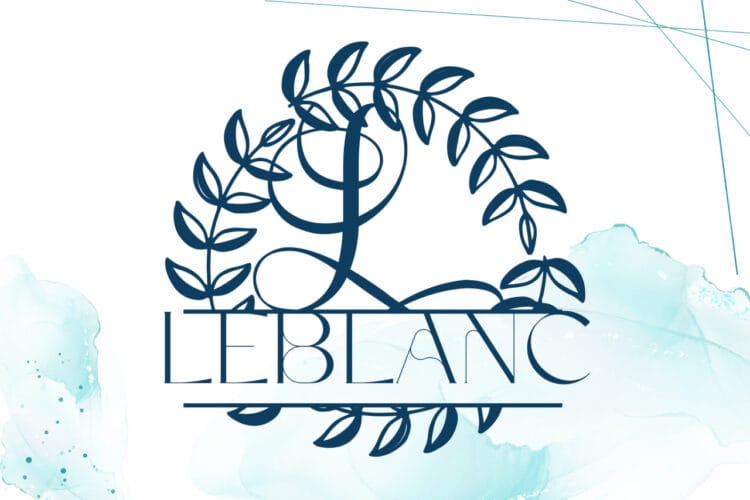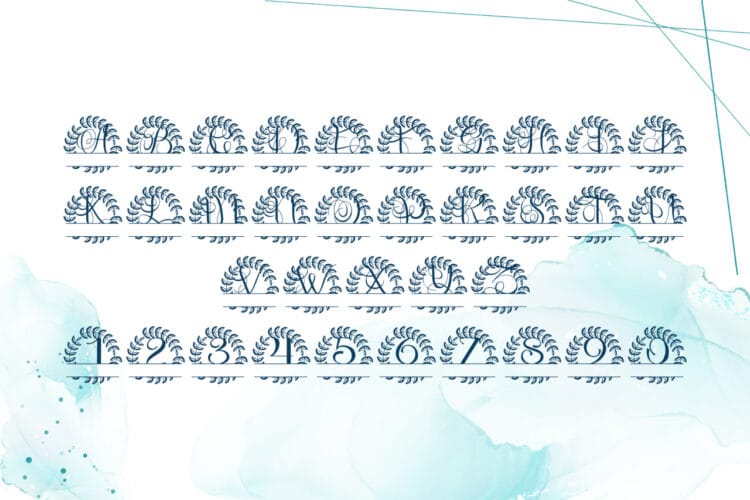
Meet Jewelbourne Split Monogram Font
Jewelbourne Split Monogram Font turns any initial into a radiant, name-ready emblem in seconds. Calm, confident letterforms carry a boutique-luxury feel, while a precise horizontal split creates natural space for names, dates, or short words. Because spacing stays even and counters remain open, designs look polished from tiny tags to statement wall art. Use it for wedding keepsakes, family name signs, door hangers, tumblers, ornaments, menus, and premium packaging. Pair it with a clean sans or a light script and every layout stays readable and refined.
Where this split monogram font shines
Set one hero initial and place the family name inside the split for instant personalization. Next, try couple names for engagement gifts, venue names for wayfinding, or short words like Home, Welcome, and Love for seasonal décor. Since proportions favor clarity, your files scale smoothly for Cricut, Silhouette, Glowforge, and laser projects. As a result, batch customization becomes fast and consistent across your product lines.
Design tips for Jewelbourne Split Monogram
Keep the hero initial large and let white space breathe. Place the split at center or slightly low for a steady baseline. Choose a simple secondary font inside the split to protect legibility on small items. Because the style is polished and gem-like, metallic foils, pearlescent stocks, and natural woods add instant value. Keep names concise so the composition stays balanced and clear at thumbnail size.
Uppercase alphabet optimized for split monograms
Matching lowercase, numbers, punctuation
Curves tuned for engraving, foil, laser cutting, and clean vinyl paths
Why makers choose this split monogram font
You want fast personalization that still feels bespoke. Jewelbourne Split Monogram Font delivers consistent, high-end name designs in minutes while keeping your shop’s visual language cohesive from gifts to signage.